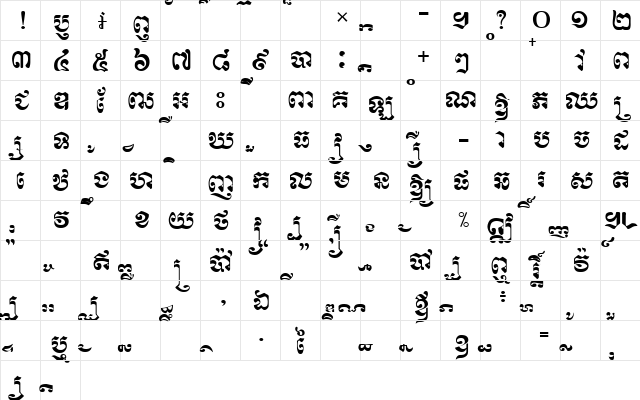
Kasskeo New Normal
Design Context for Kasskeo New Typeface
Kasskeo New offers clean, dependable letterforms without strong stylistic allegiance, making it a practical choice for designers who need flexibility.